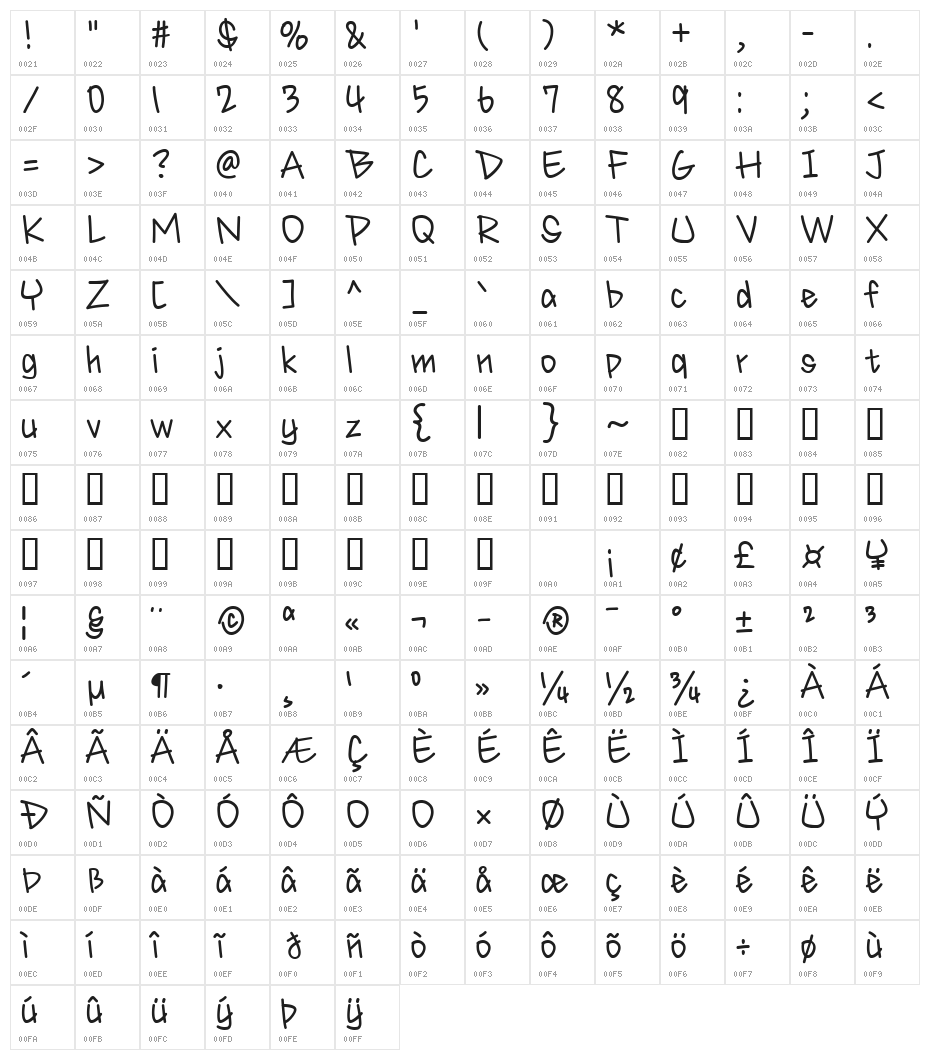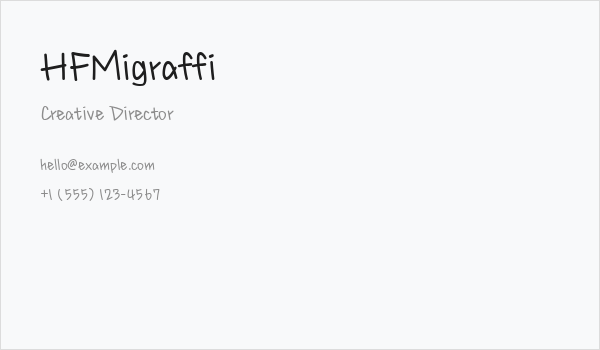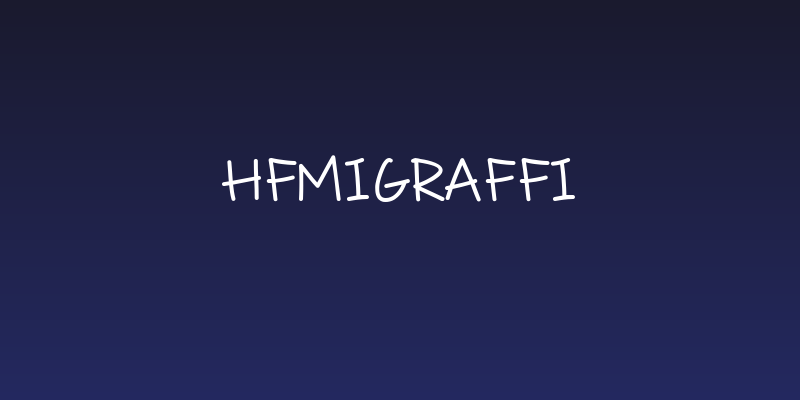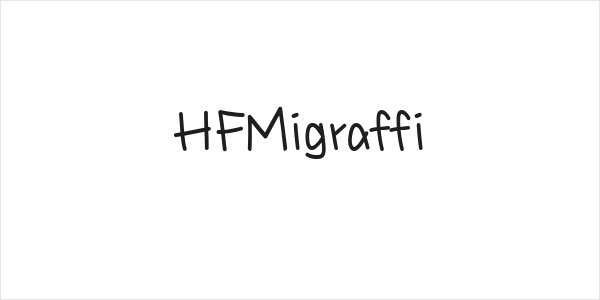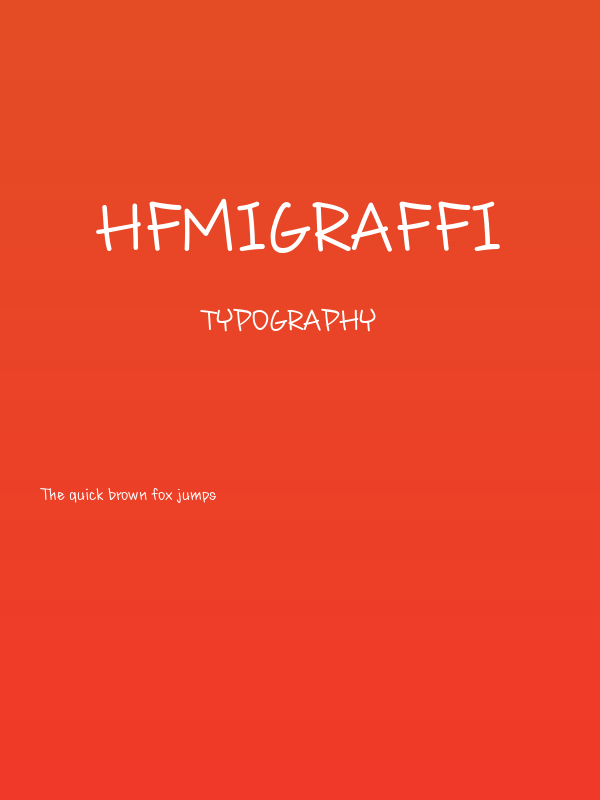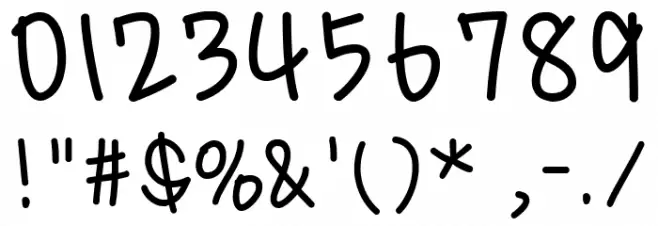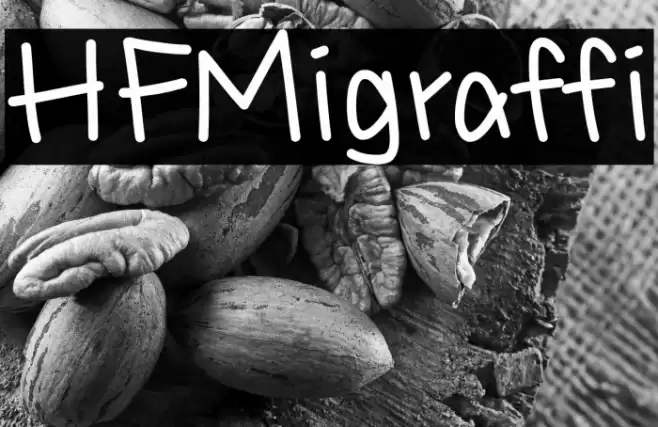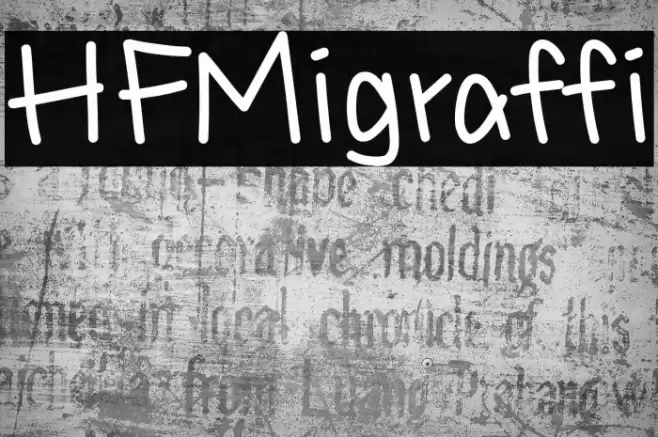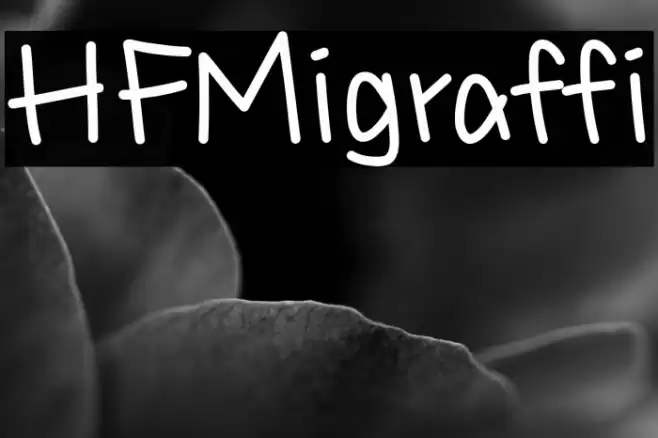
HFMigraffi Font
HFMigraffi Description
This font features a playful and casual handwritten style, characterized by its smooth, rounded strokes and slightly irregular letterforms. The uppercase and lowercase letters maintain a consistent flow, giving a sense of movement and energy. The numerals and special characters are crafted with the same lively touch, ensuring a cohesive appearance across all glyphs. The font's informal nature makes it approachable and friendly, suitable for projects that require a personal or whimsical touch.
| Proposed Projects | Ideal for greeting cards, children's books, playful branding, and social media graphics. |